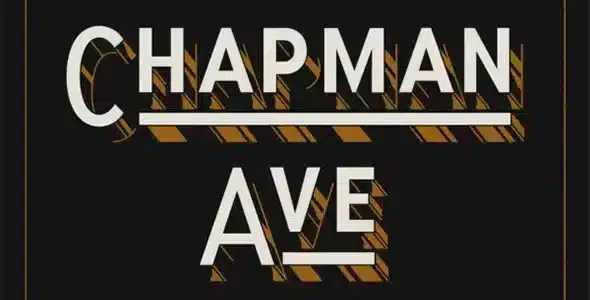
Hoodzpah Chapman Ave Layered Font
A Dropshadow and Chrome font family for a 3D look in seconds. Literally make your logo “pop” with these dimensional shadow and highlight effects! Add interest to any design such as magazines, posters, websites, t-shirts, flyers… the application options are endless.
Contextual alternatives that do the hard work
Hoodzpah Chapman Ave Layered Font features a smart underline hard-coded to recognize the space bar as a signal to add an end cap. Using Titlecase? Any lowercase letter following an uppercase letter will have a leading cap. It’s as simple as selecting Style Set 1 and turning on “Contextual Alternatives.”
2 Stylistic sets and more open type features:
Hoodzpah Chapman Ave Layered Font includes 2 open-type stylistic sets: the default style set features descending uppercase letters. Style set 01 (.ss01) adds an underline ornamentation.